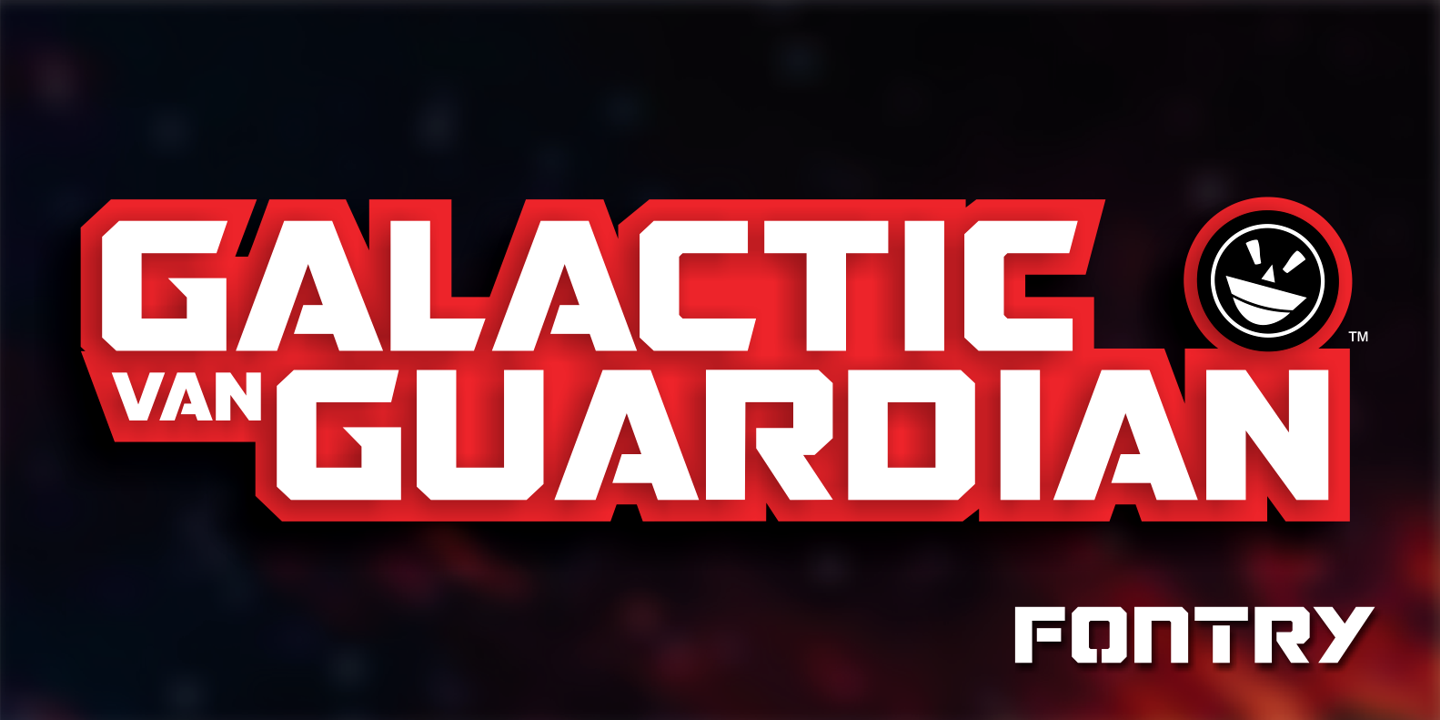
This electrifying typeface is an excellent choice for projects that demand a futuristic, sci-fi, and action-packed aesthetic with a gritty, often military-inspired edge. Imagine it dominating the titles of space opera video games, providing a high-tech vibe to cyberpunk graphic novels, or adding a battle-hardened feel to futuristic movie posters. FTY Galactic VanGuardian Font is also perfectly suited for designing thrilling game UI elements, crafting distinctive logos for sci-fi themed brands, or creating compelling visuals for dystopian narratives and advanced technology showcases. Its often sharp angles, segmented letterforms, and robust, almost armored appearance make it an ideal option for any design seeking to convey power, innovation, and an undeniable sense of intergalactic adventure, such as space marine insignias, futuristic vehicle branding, or alien world exploration narratives.
What makes FTY Galactic VanGuardian Font so exciting? It perfectly encapsulates a blend of advanced technology and rugged utility, often featuring stencil-like cuts, digital distortion, or mechanical precision that gives it a formidable presence. This font doesn’t just convey text; it transports the viewer to a distant future or a battle-scarred galaxy, imbued with the character and excitement of epic sci-fi sagas. It's engineered to command attention in high-stakes visual environments, ensuring your message is not just seen but felt with a visceral, almost cinematic impact. The inherent strength and futuristic appeal of its character shapes make it particularly effective for brands that champion innovation, exploration, and an uncompromising, action-oriented identity. Its design can evoke a sense of advanced weaponry, powerful spacecraft, and daring missions.
The FTY Galactic VanGuardian Font family typically offers a range of styles to enhance its versatility, allowing for various levels of visual expression and design impact. You might find options such as Regular, Bold, and perhaps even a distressed, glitch, or "cyber" version, each meticulously designed to retain the font's characteristic sci-fi essence while providing different degrees of visual intensity. These variations enable designers to create layered and dynamic compositions, using heavier weights for primary titles that demand immediate attention and lighter, more intricate versions for technical readouts or subheadings. The availability of multiple stylistic options ensures that FTY Galactic VanGuardian Font can be seamlessly integrated into diverse design applications, from high-octane game marketing to immersive digital experiences, all while maintaining its unique and powerful allure.
Whether you're crafting a new universe for a video game, designing a thrilling book cover, or simply need a typeface that speaks with undeniable power and futuristic attitude, FTY Galactic VanGuardian Font Free Download is an outstanding choice. Its distinctive impact and versatile nature will ensure your designs always leave a memorable and electrifying impression across the cosmos.